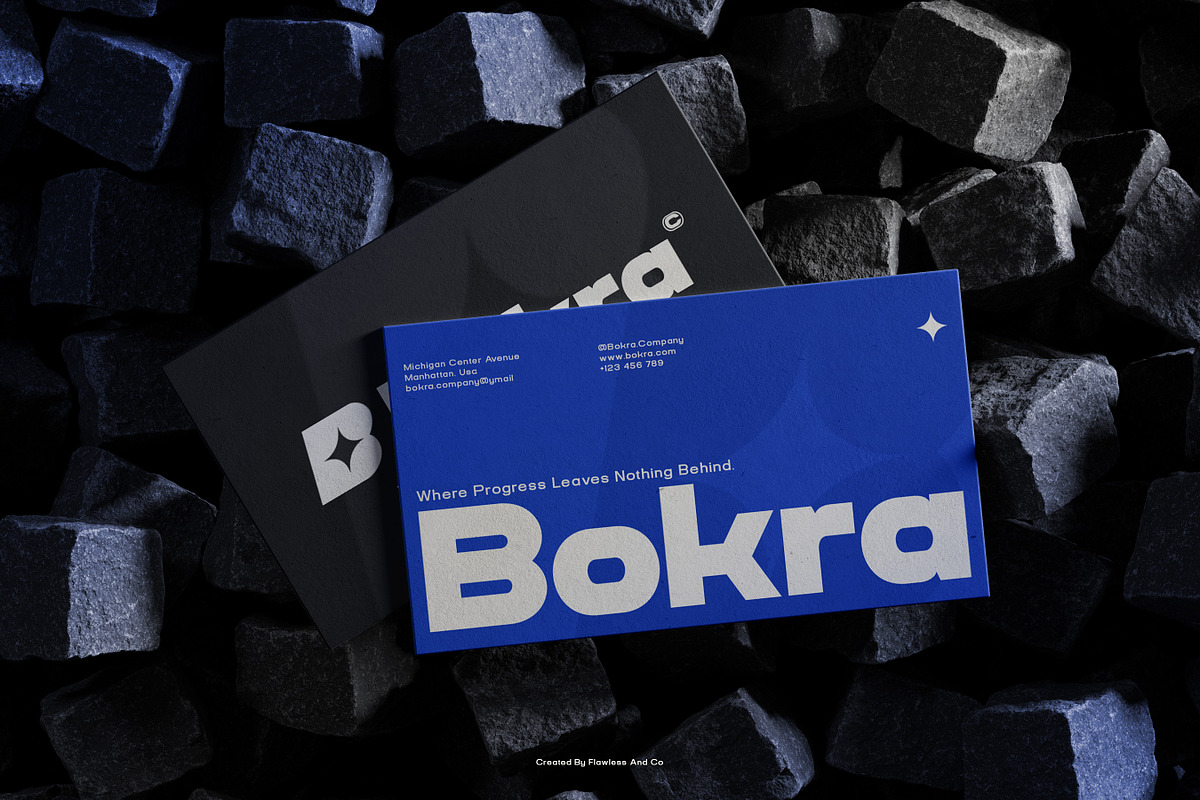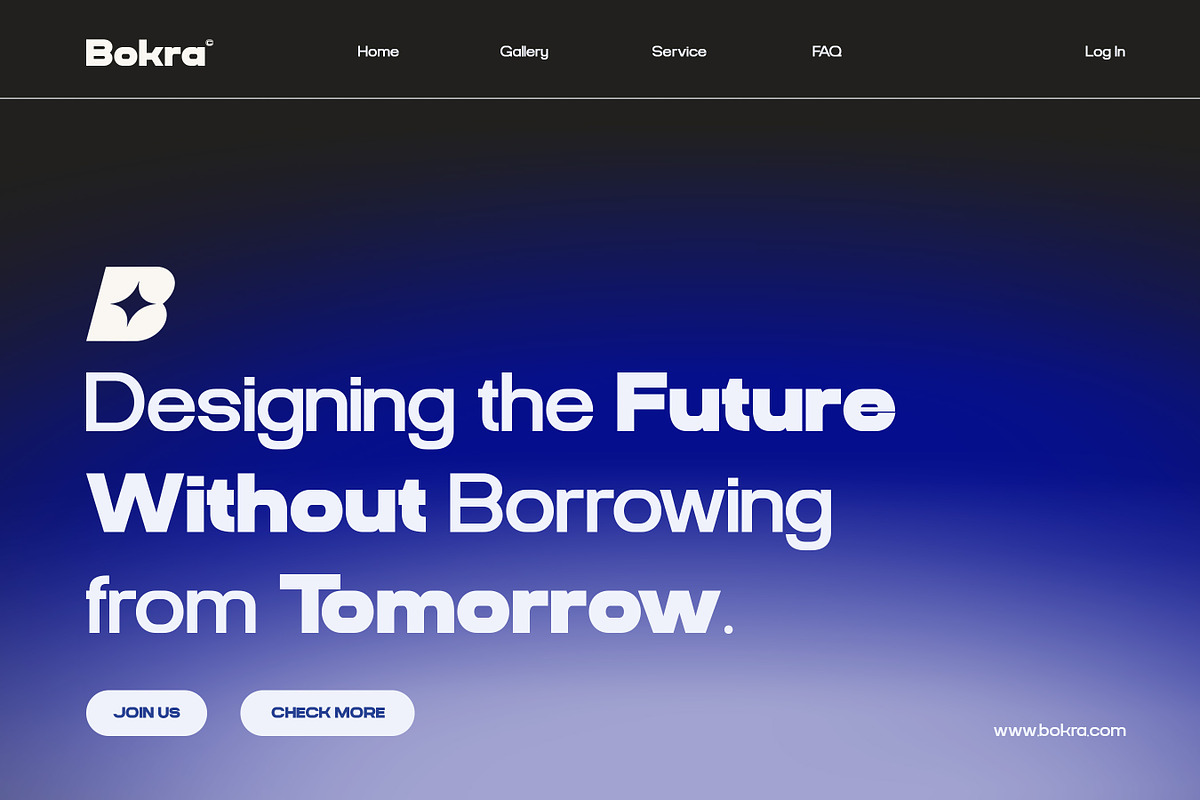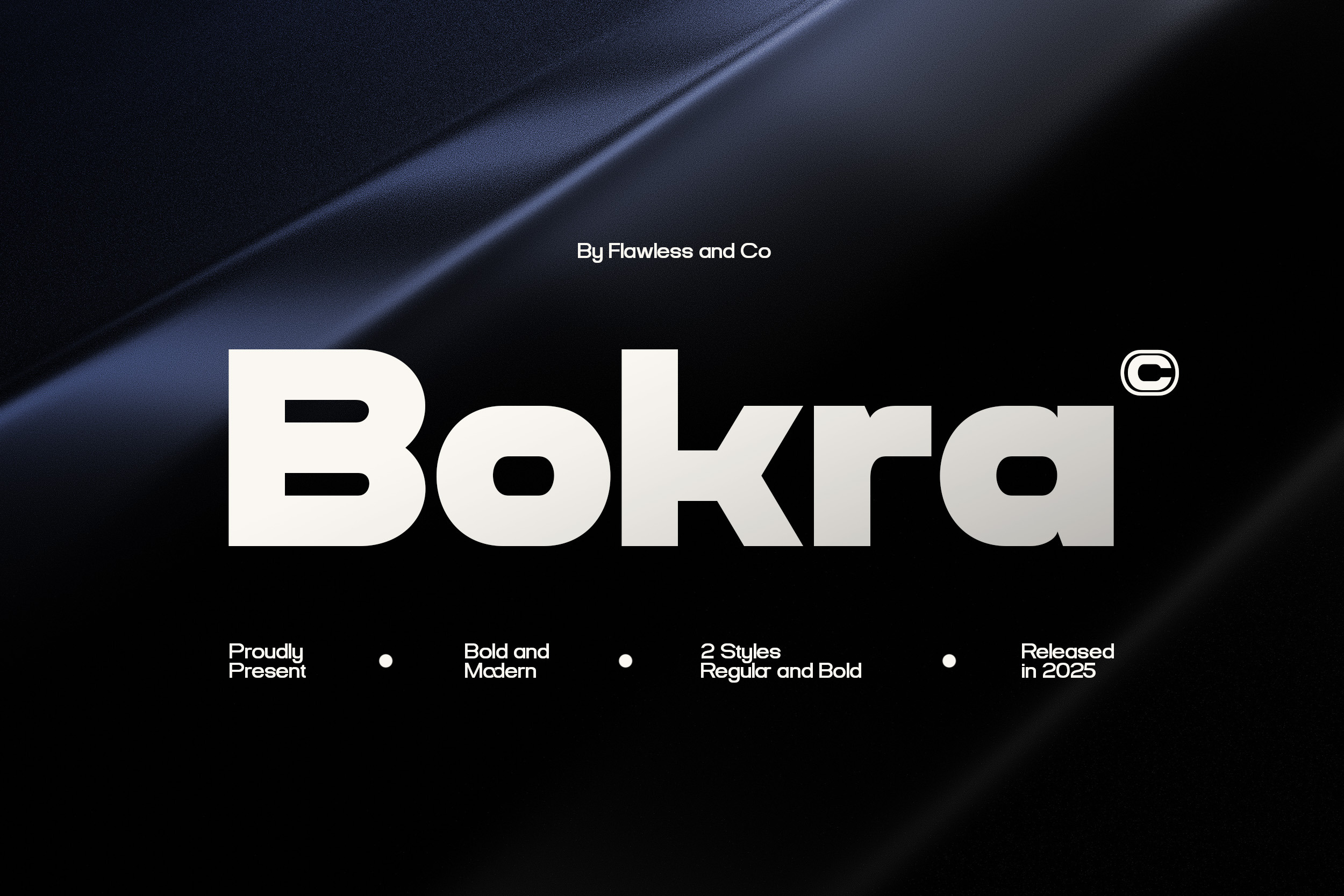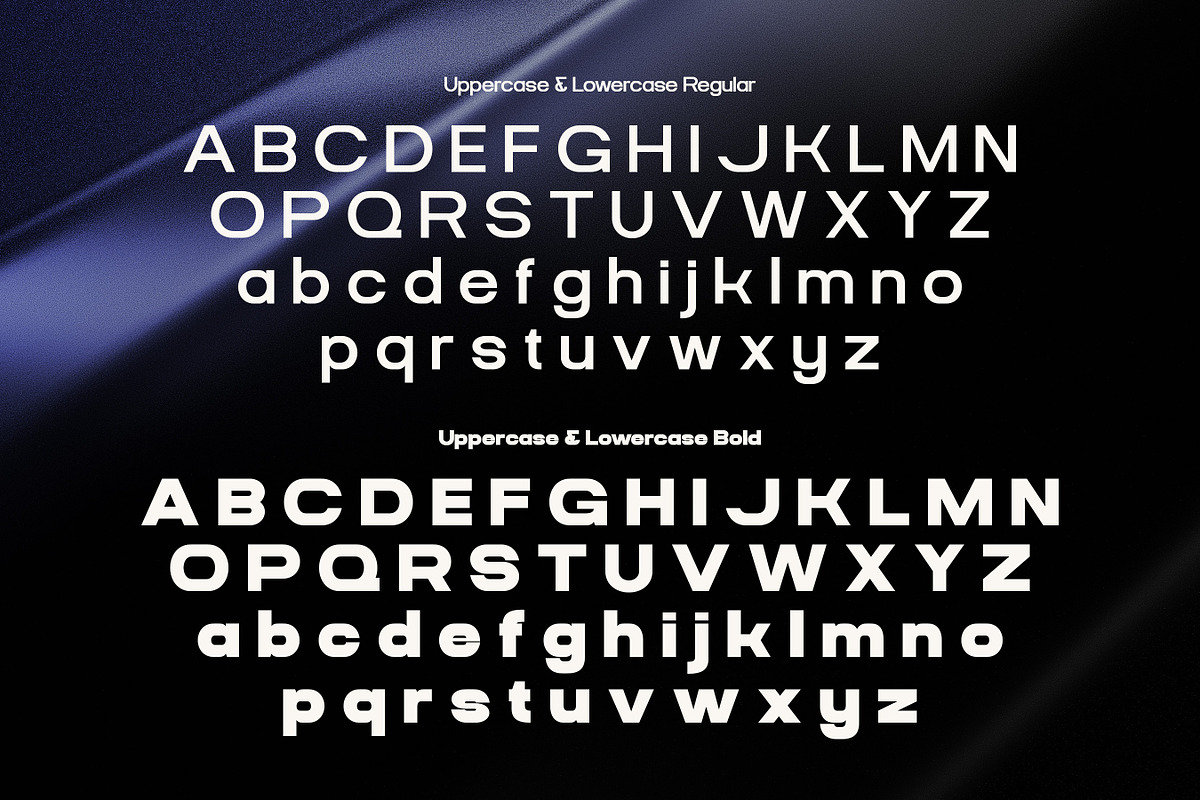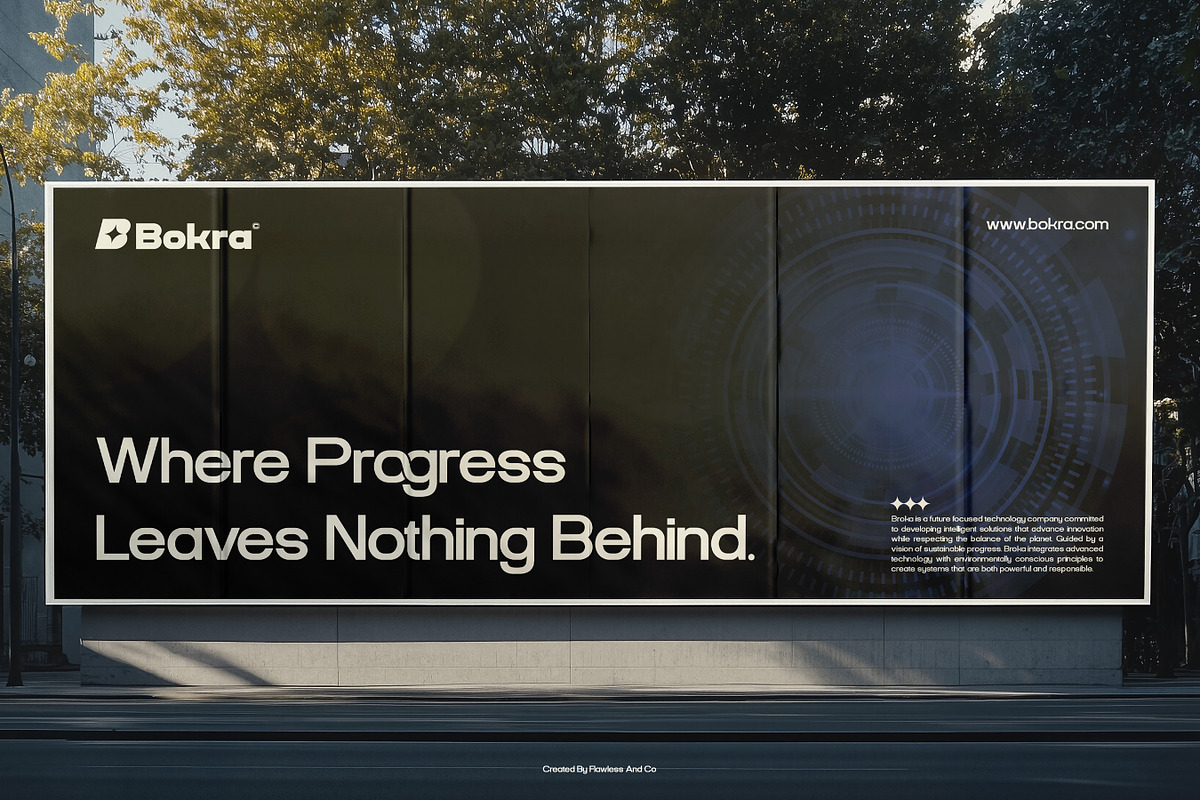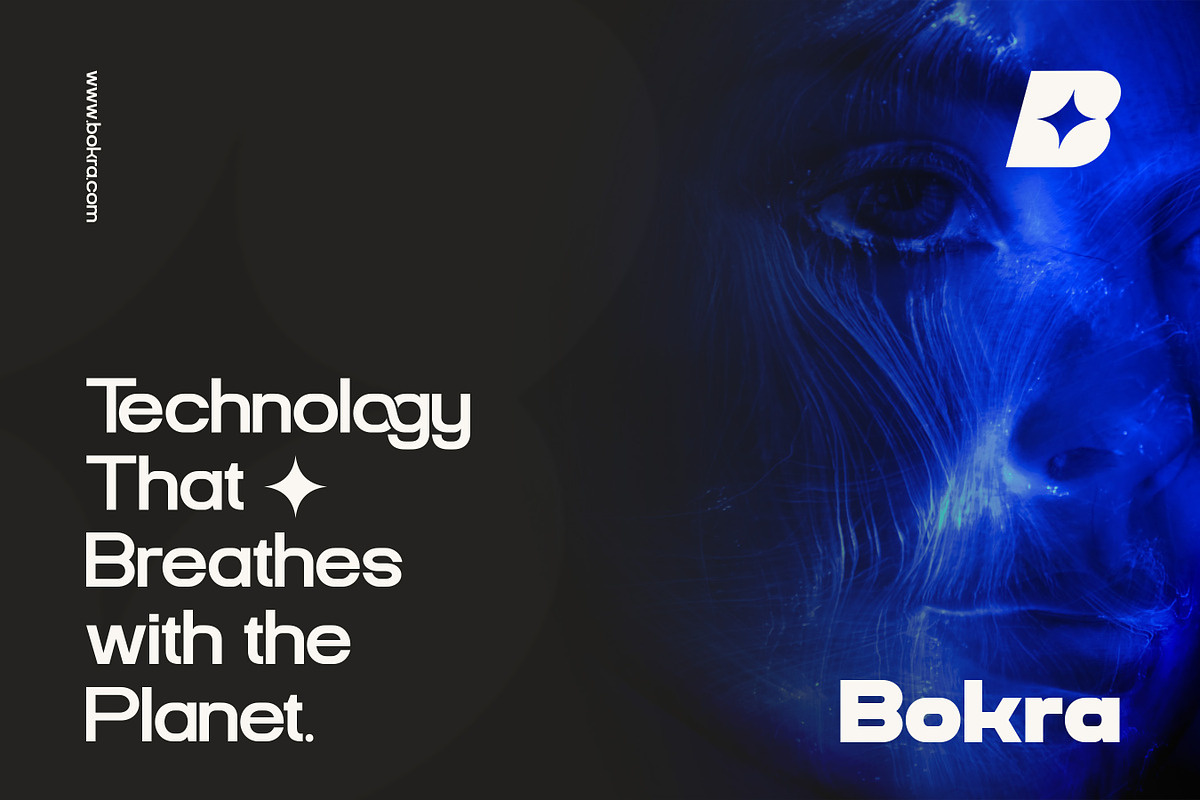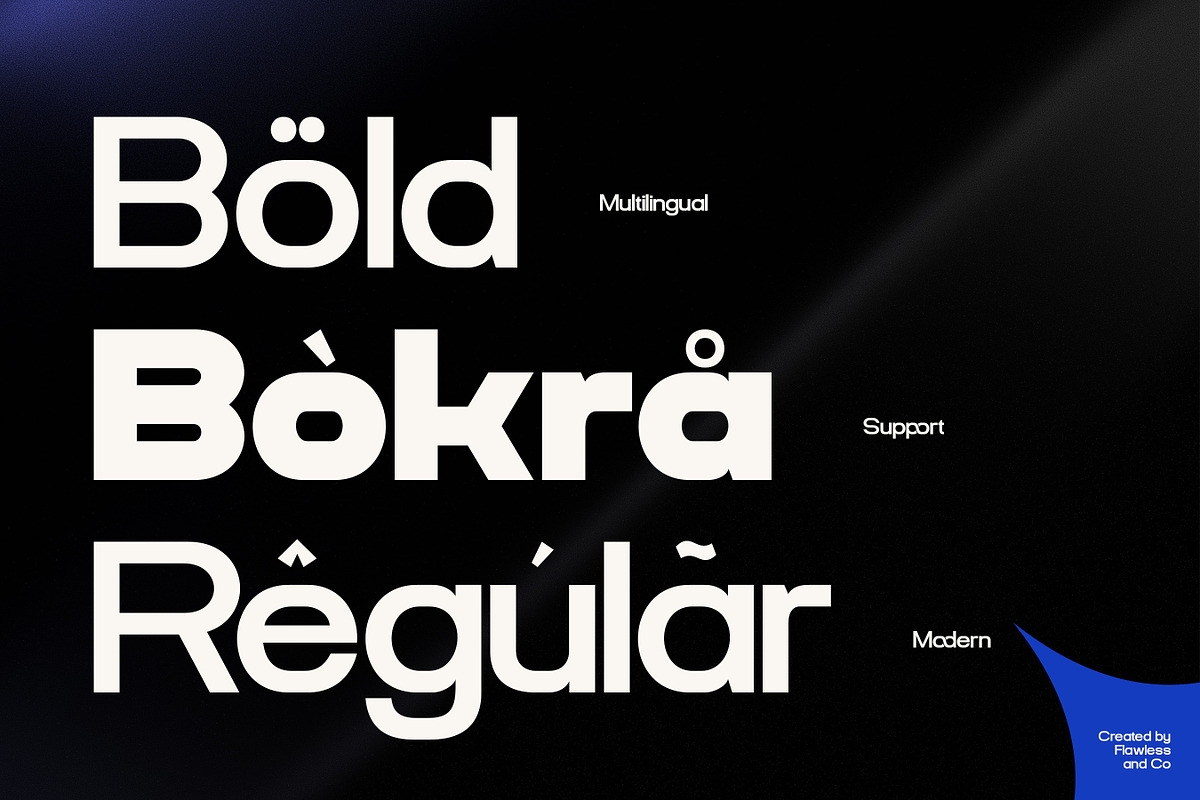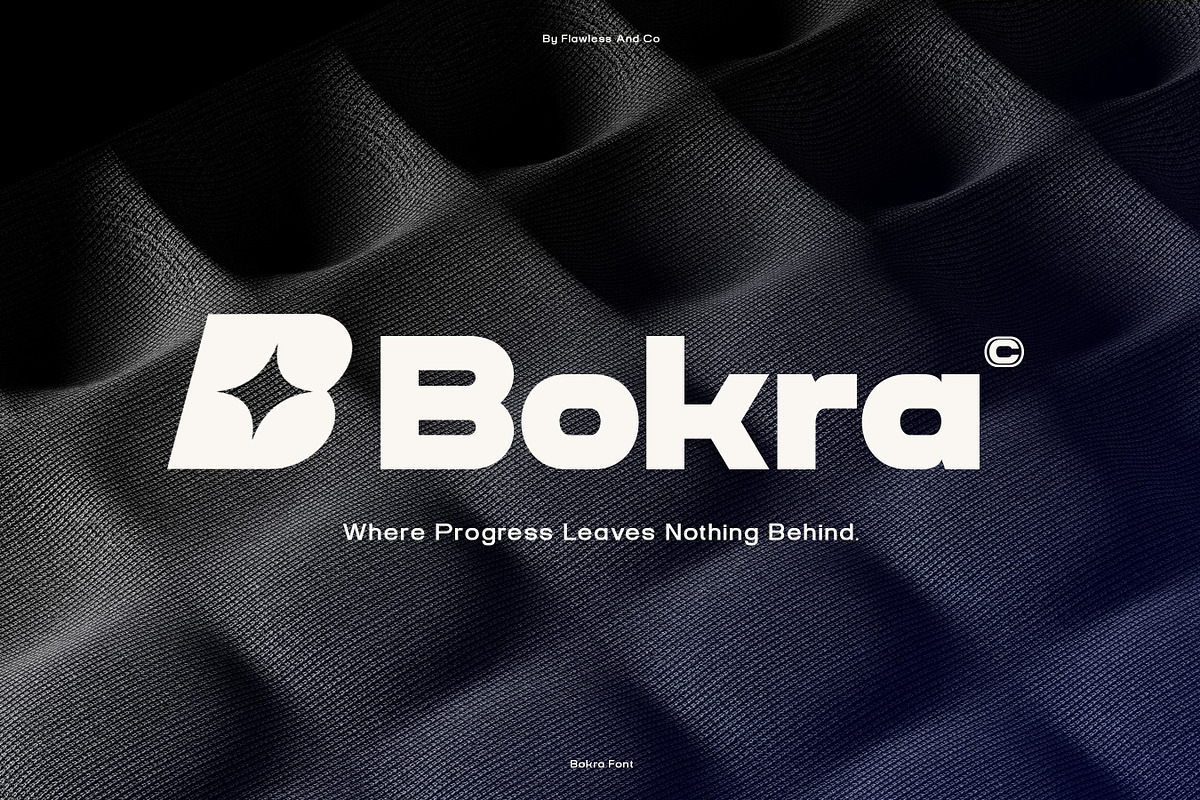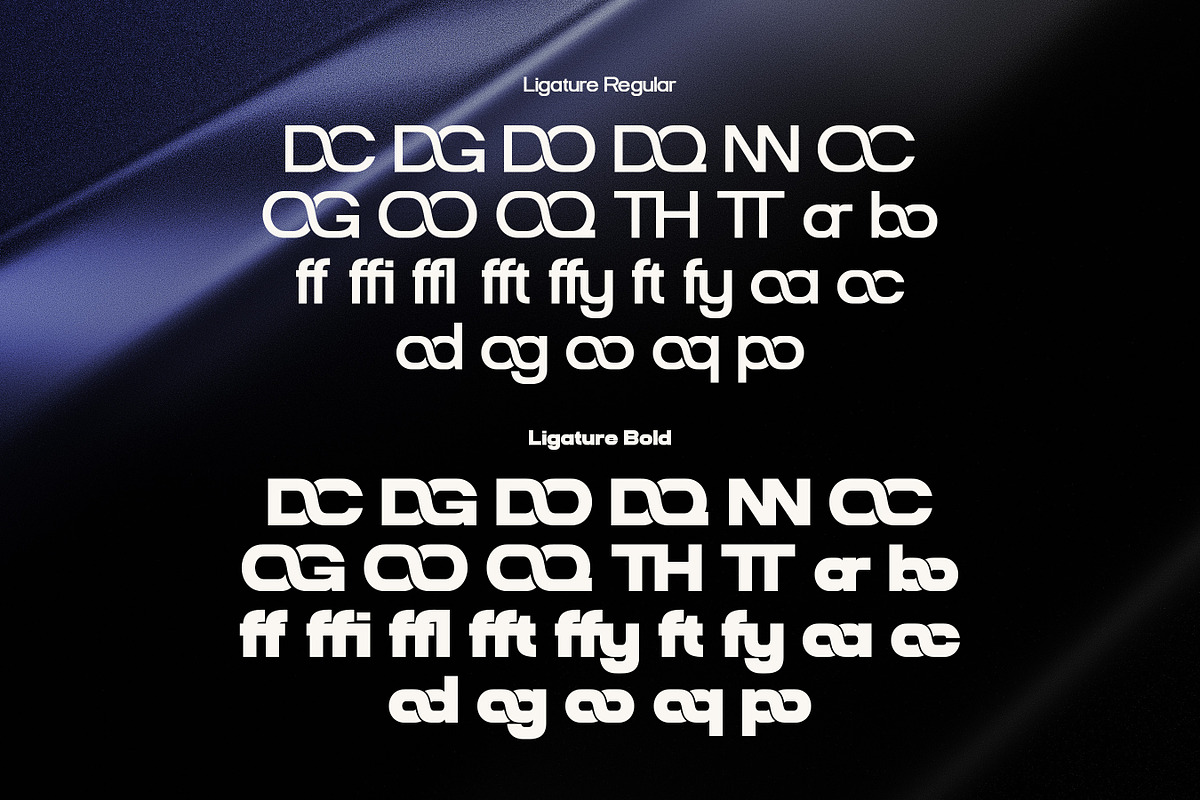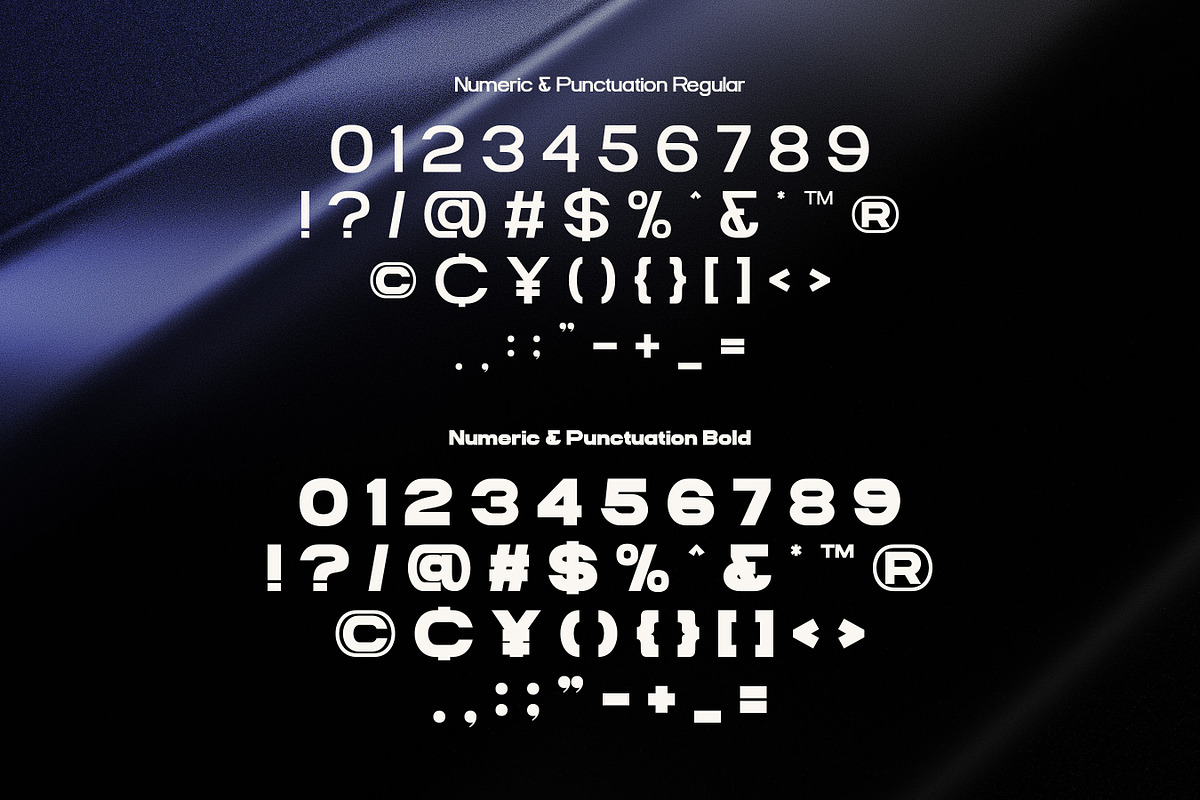
Bokra - Bold Modern Sans Serif Font
Bokra is a bold and modern sans serif font designed to deliver strength, clarity, and contemporary appeal. Featuring two styles Regular and Bold. this font offers clean shapes and strong letterforms that make any design stand out with confidence. Bokra is perfect for modern branding that needs a powerful yet minimal look.
Who Should Use Bokra?
Bokra is ideal for brand designers, logo creators, and graphic designers who want a strong sans serif font with a modern character. It’s perfect for creatives working on bold visual identities, digital projects, and eye-catching headlines.
Why Choose Bokra for Brand and Logo Projects?
Bokra’s bold structure and clean geometry ensure logos remain clear, impactful, and highly readable across all media. With Regular and Bold styles, it provides flexibility while maintaining a consistent and professional brand appearance.
Suitable For
- Brand and logo design
- Modern corporate identity
- Headlines and titles
- Posters and advertising
- Website and UI design
- Social media graphics